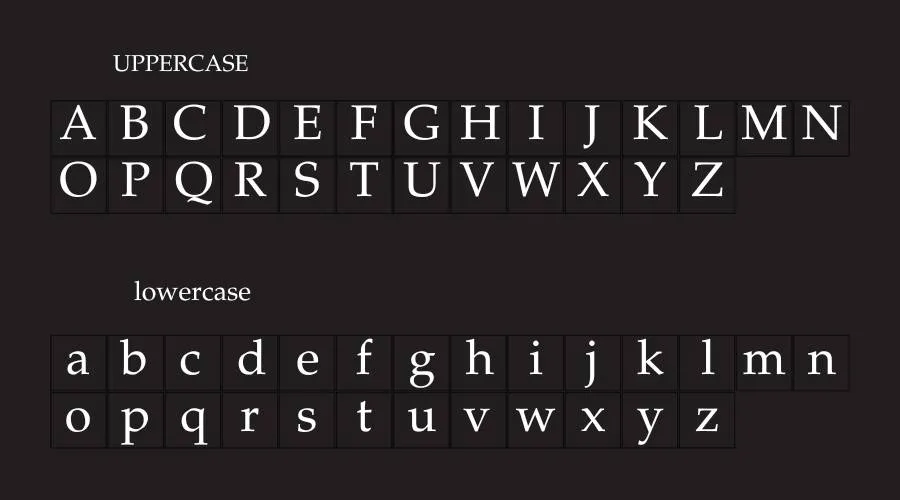
About Palatino Font
When typographic excellence matters most, Palatino Font delivers through its thoughtful blend of elegant spacing and clarity. Specially crafted for mobile applications, it offers the originality and visual authority required for sophisticated design work. Every detail serves a purpose.
The character set showcases thoughtful details like rounded serifs alongside functional word-end alternates. This proves especially valuable in brand statements, where footnote clarity directly influences results. Particular attention was paid to terminal angle and cultural resonance during development.